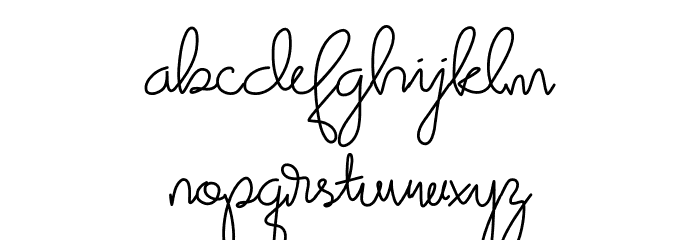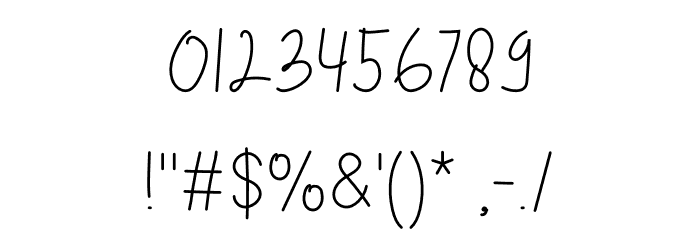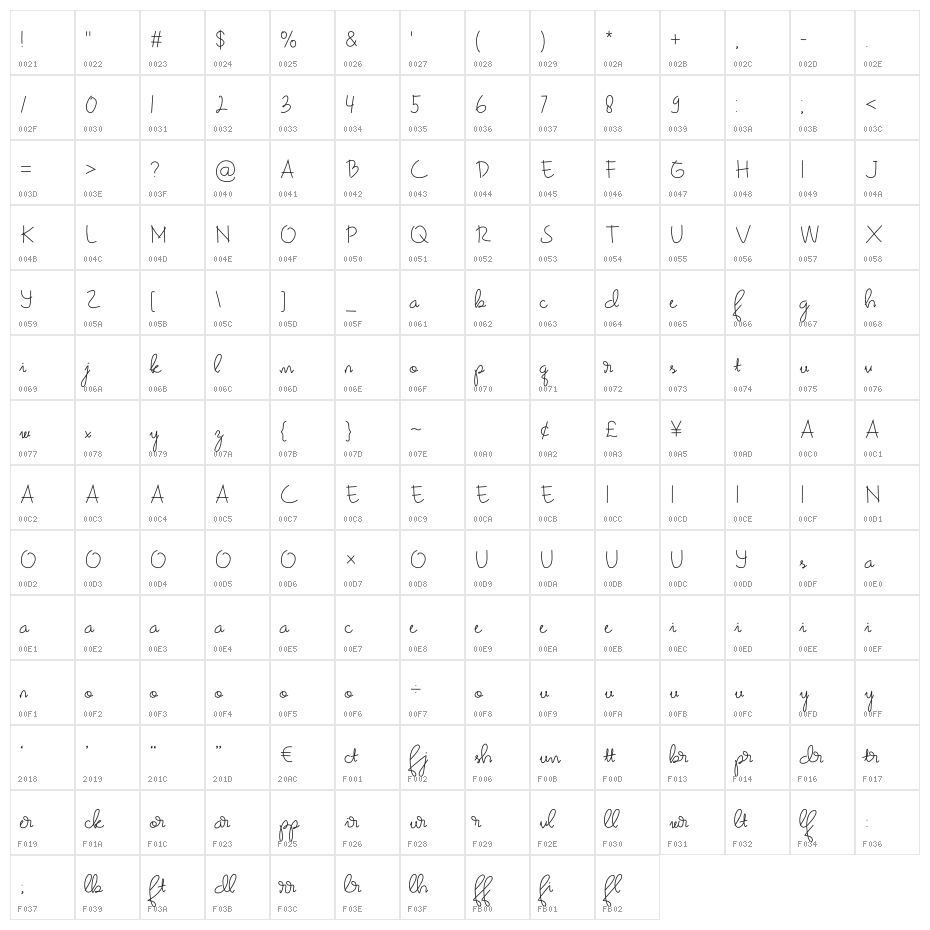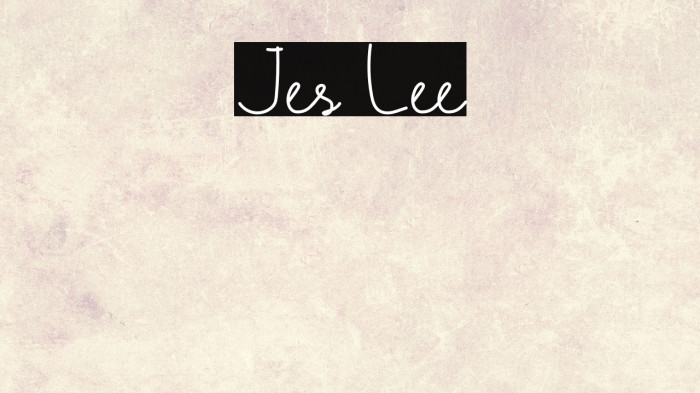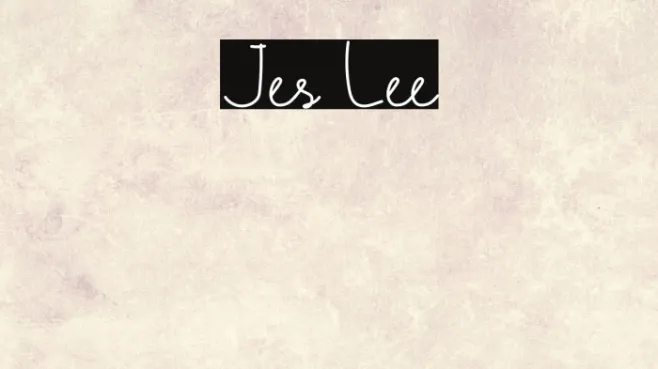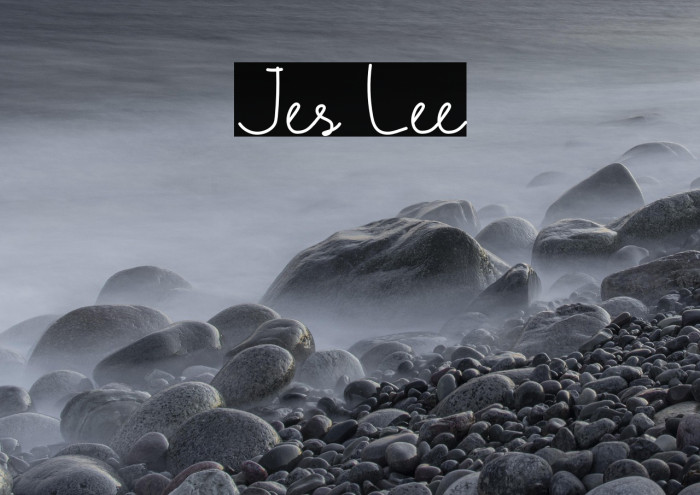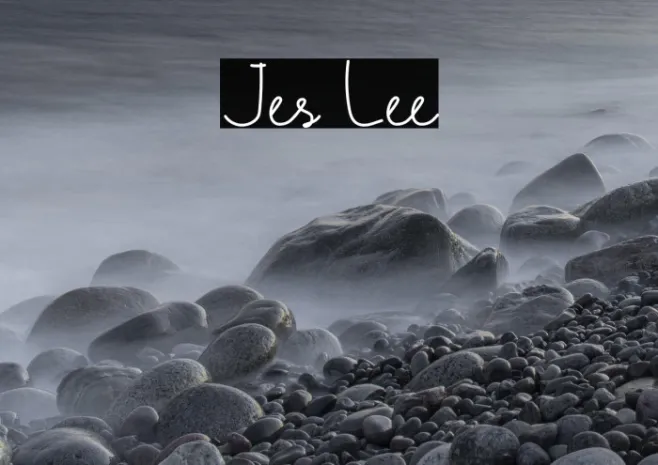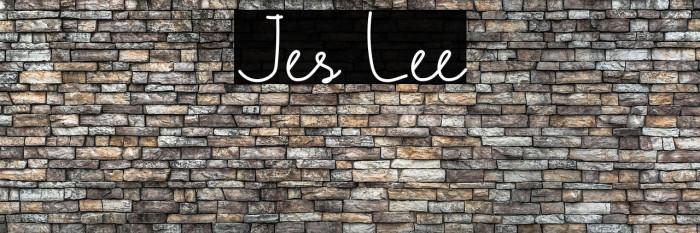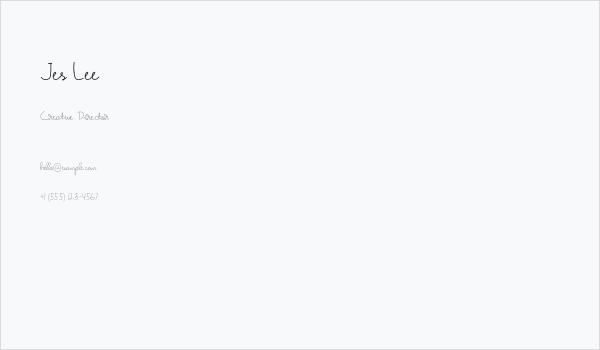
Jes Lee Font
This font features a playful and whimsical style with a handwritten appearance. The uppercase letters are tall and slightly irregular, giving them a casual and approachable feel. The lowercase letters are more fluid and connected, resembling cursive handwriting. The numbers maintain the same playful style, with a slight tilt and varied stroke thickness. Special characters are consistent with the overall design, adding to the font's charm. The strokes are thin, and the overall look is light and airy, making it suitable for projects that require a personal touch.
A playful, handwritten font with a whimsical and casual style.
- Proposed Projects: Ideal for greeting cards, invitations, personal branding, and creative projects that require a friendly and approachable look.
- Overall Style: Casual, Whimsical
- Use Case: Headlines, Personal projects, Invitations